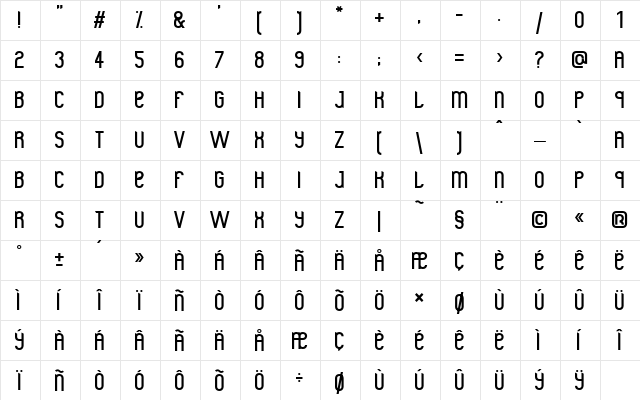
Gram Gram
| Foundry | Ewen Prigent |
| Designer | Ewen Prigent |
Design Context for Gram Typeface
Gram offers clean, dependable letterforms without strong stylistic allegiance, making it a practical choice for designers who need flexibility.